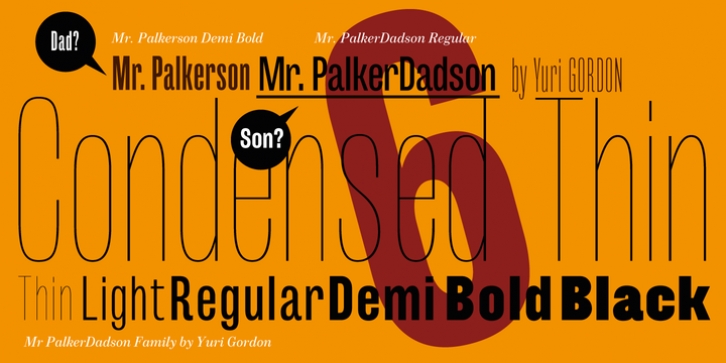
Mr Palker Dadson — has appeared in a natural evolution of the Palker-Palkerson family. Its closest relative - burly slab serif Mr Palker Dad.
This generation is more stout than the previous one. One may even be brave enough to use them for composing small texts. Notably Mr Parker Dad has become one of the frequently sold typefaces on the «Peterburg. The city speaks» map as it is highly readable while remaining extremely tight.
Mr Parker Dadson has all the features of P&P’s family.